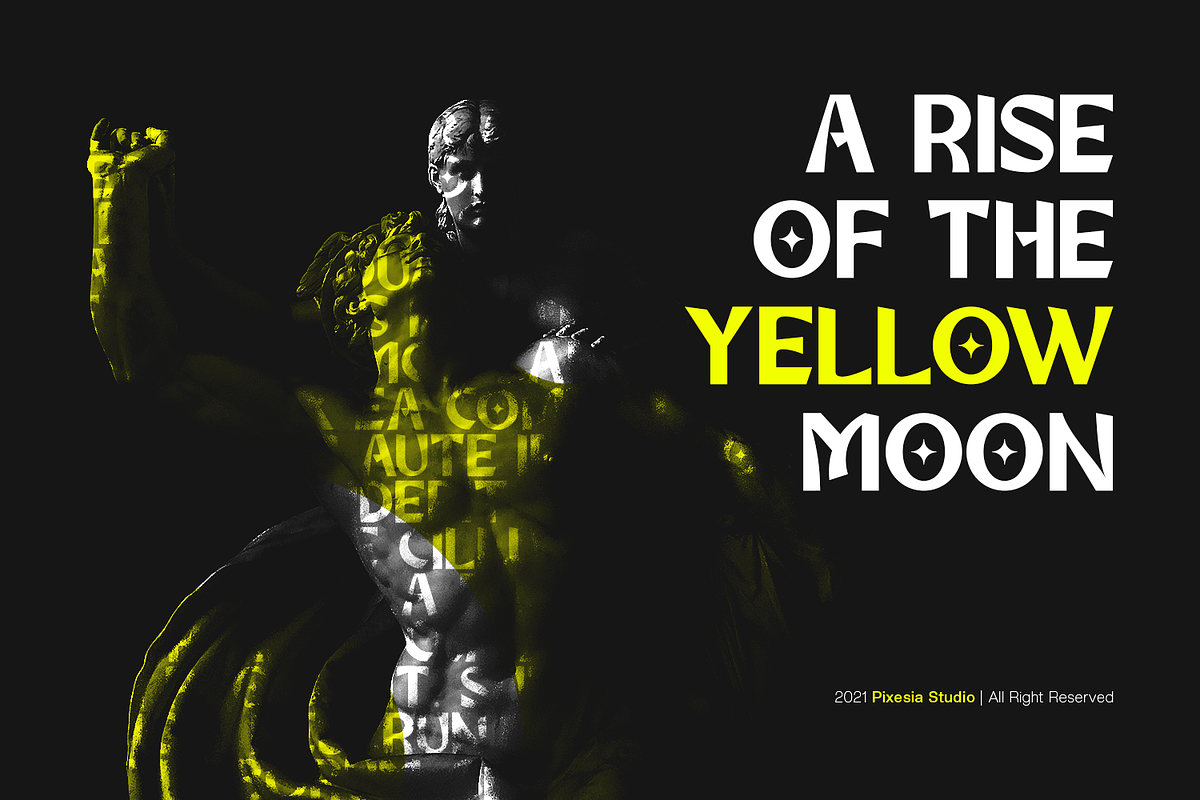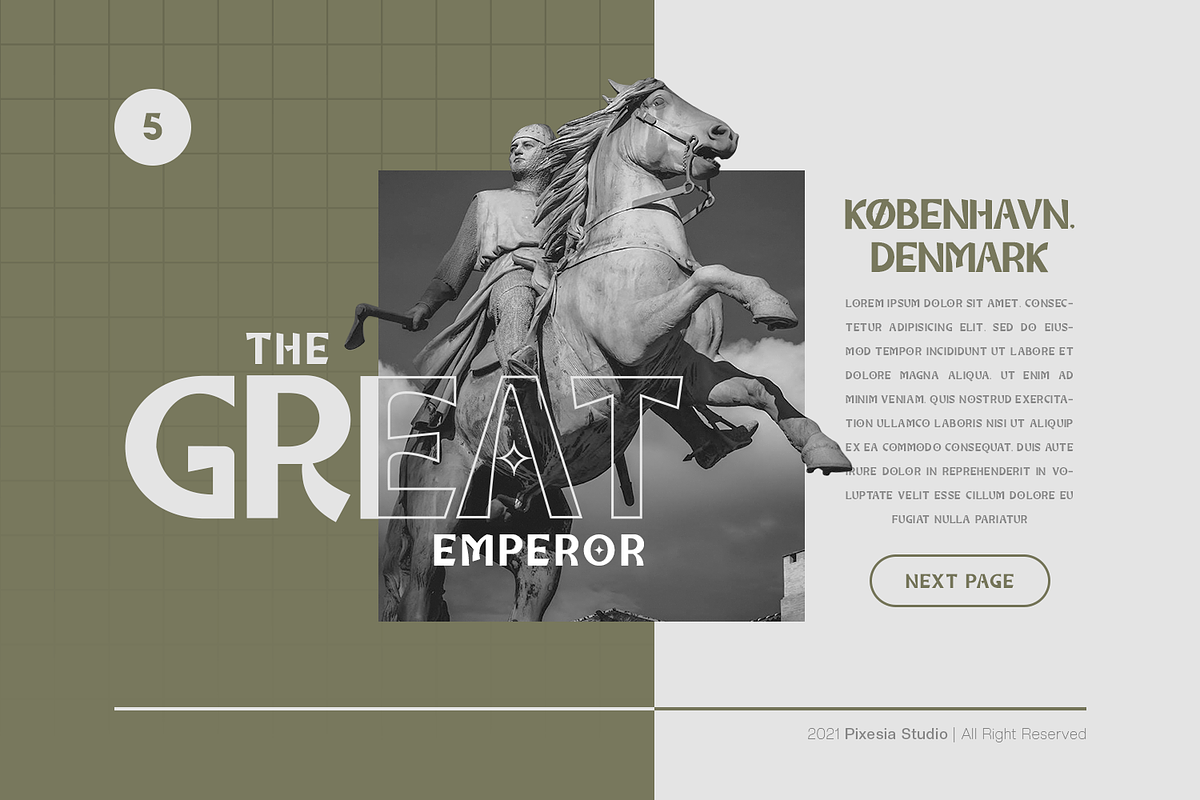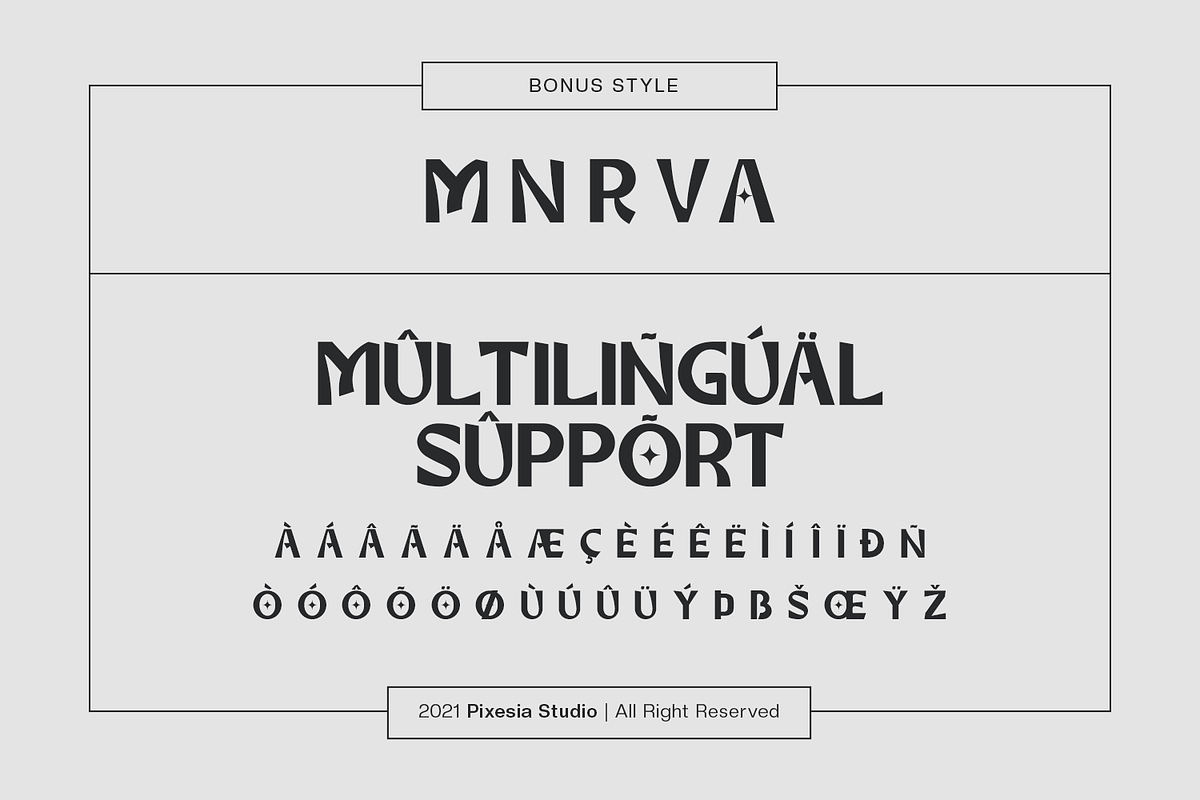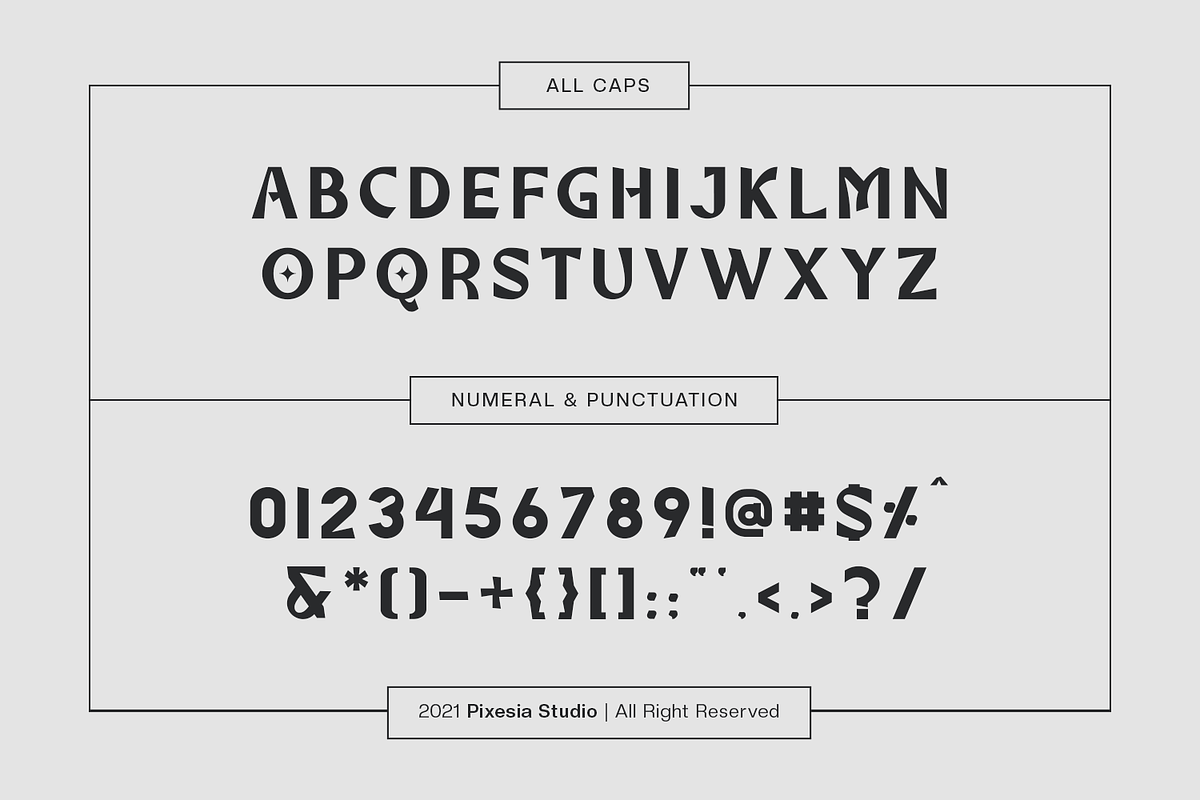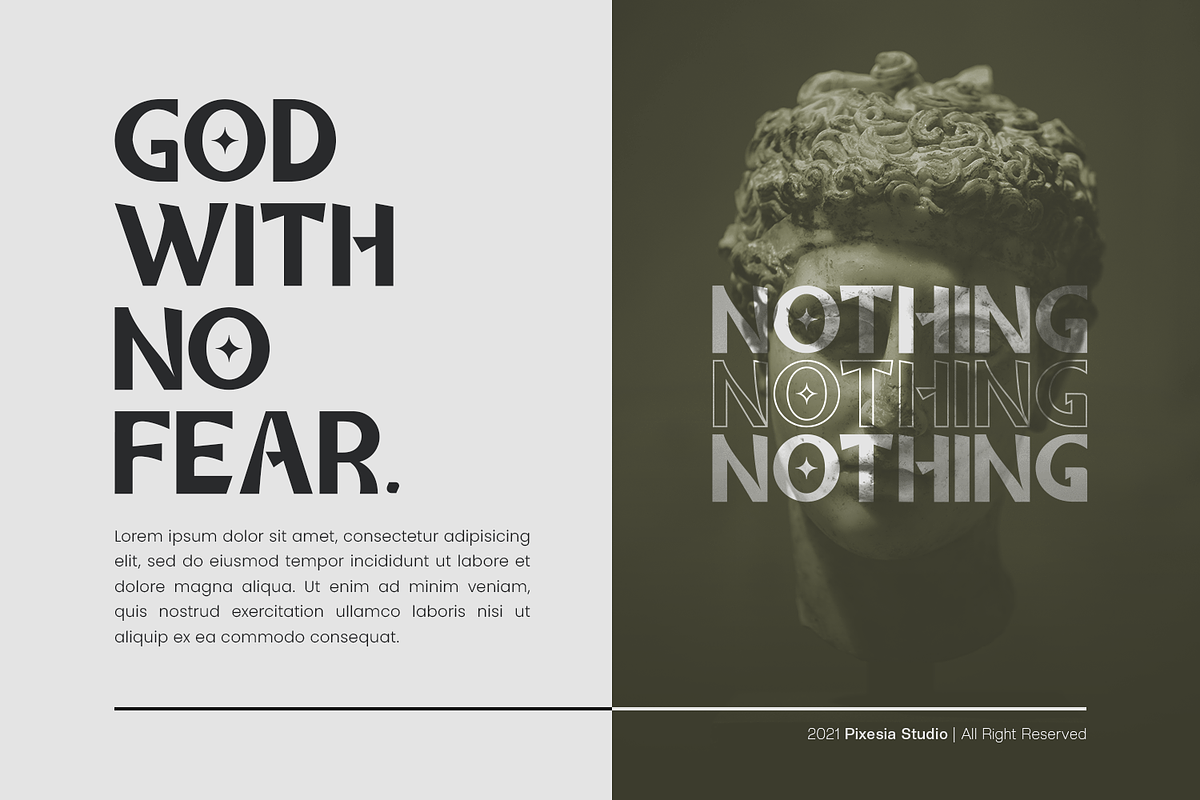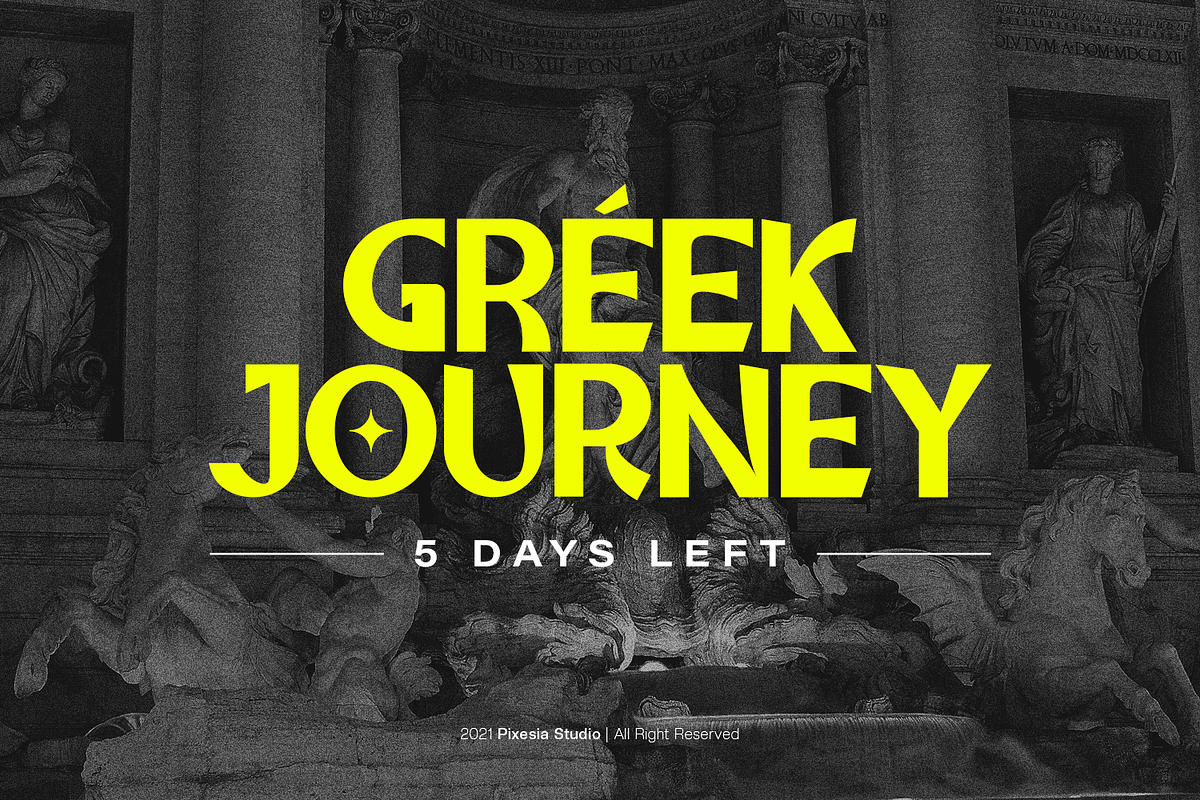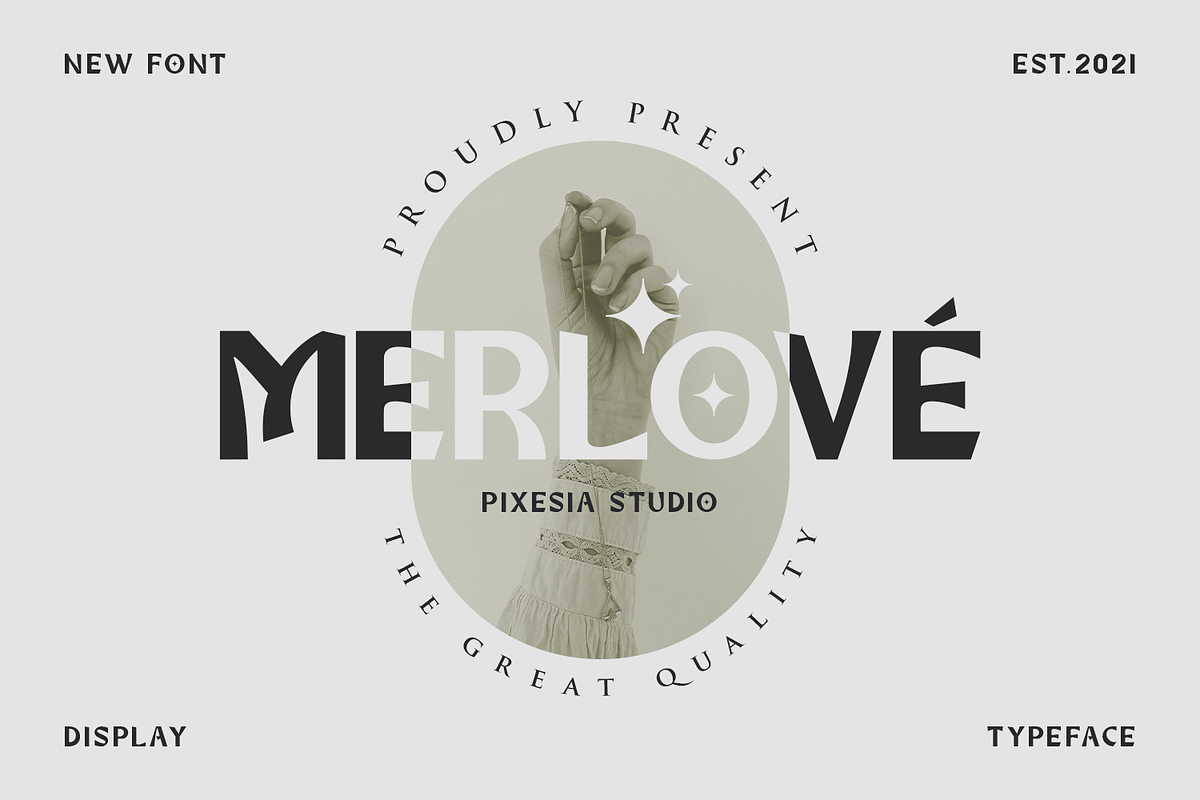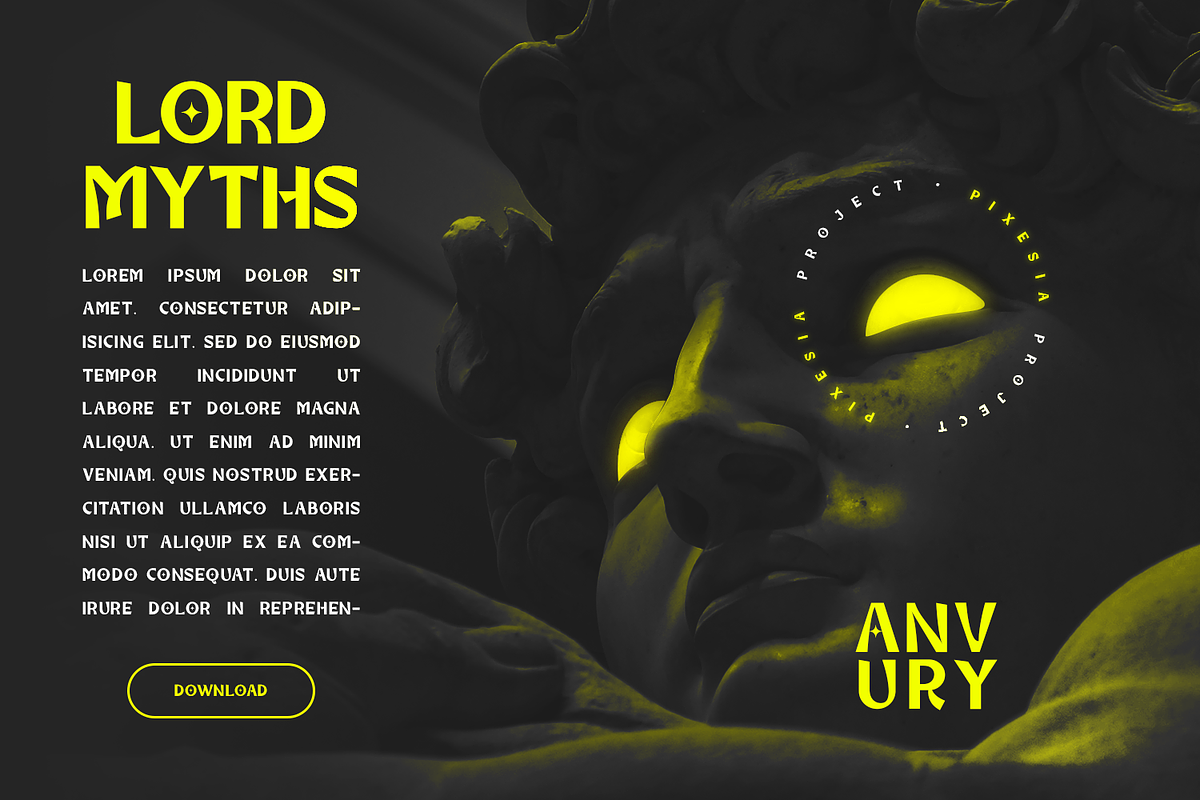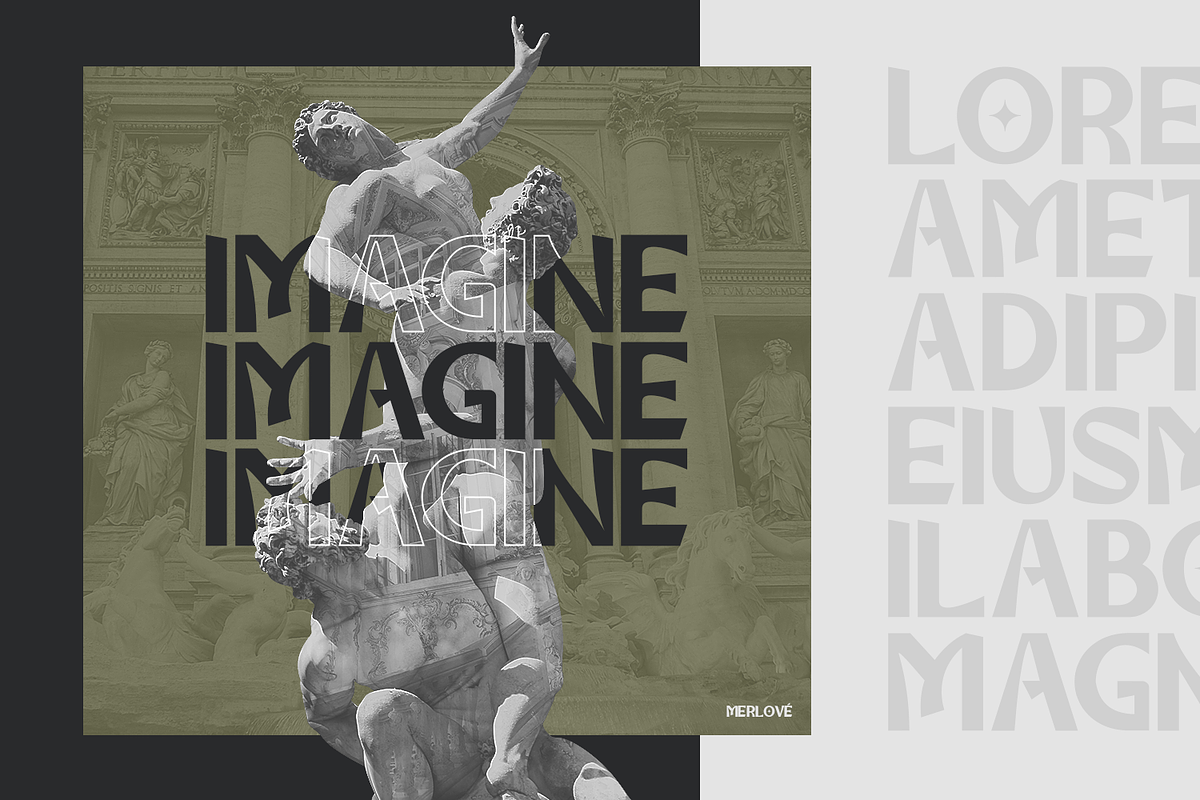
Merlove - Contemporary Display Font
Introducing Merlove - A Contemporary Display Font
Merlove is a strong and contemporary display font. It has an unique vintage style, that is perfect for branding. Add it to your most creative ideas and notice how it makes them come alive!
- ALL Caps